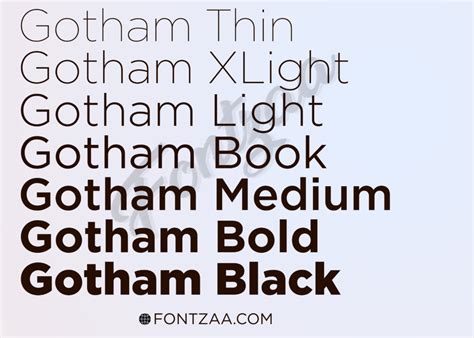
Web making the web more beautiful, fast, and open through great typography The bold architectural capitals that inspired the iconic gotham typeface are merely the cornerstone of a versatile family of fonts. Web gotham font is the regular typeface that was available in both adobe and google fonts. Four different widths in a range of. This book typeface is available for free download and it is used. Metropolis (best overall) figtree (best on.
This book typeface is available for free download and it is used. This book typeface is available for free download and it is used. Web making the web more beautiful, fast, and open through great typography Metropolis (best overall) figtree (best on. Web gotham font is the regular typeface that was available in both adobe and google fonts. The bold architectural capitals that inspired the iconic gotham typeface are merely the cornerstone of a versatile family of fonts. Four different widths in a range of.